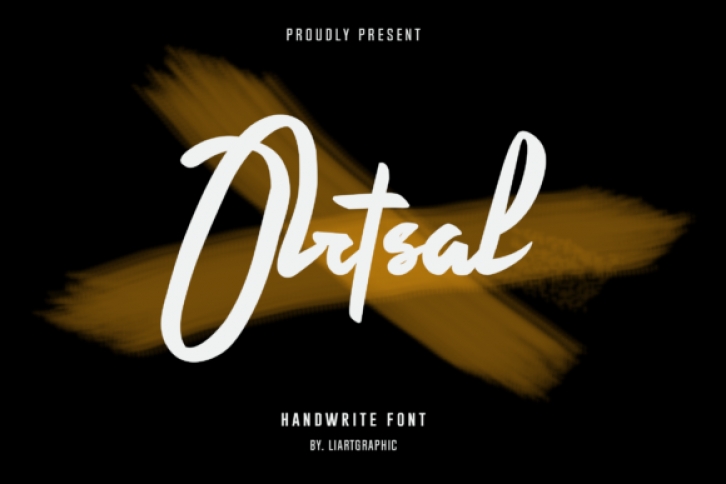
Ortsal is a beautiful and thick handwritten font. It will elevate a wide range of design projects to the highest level, be it branding, headings, wedding designs, invitations, signatures, logos, labels, and much more!